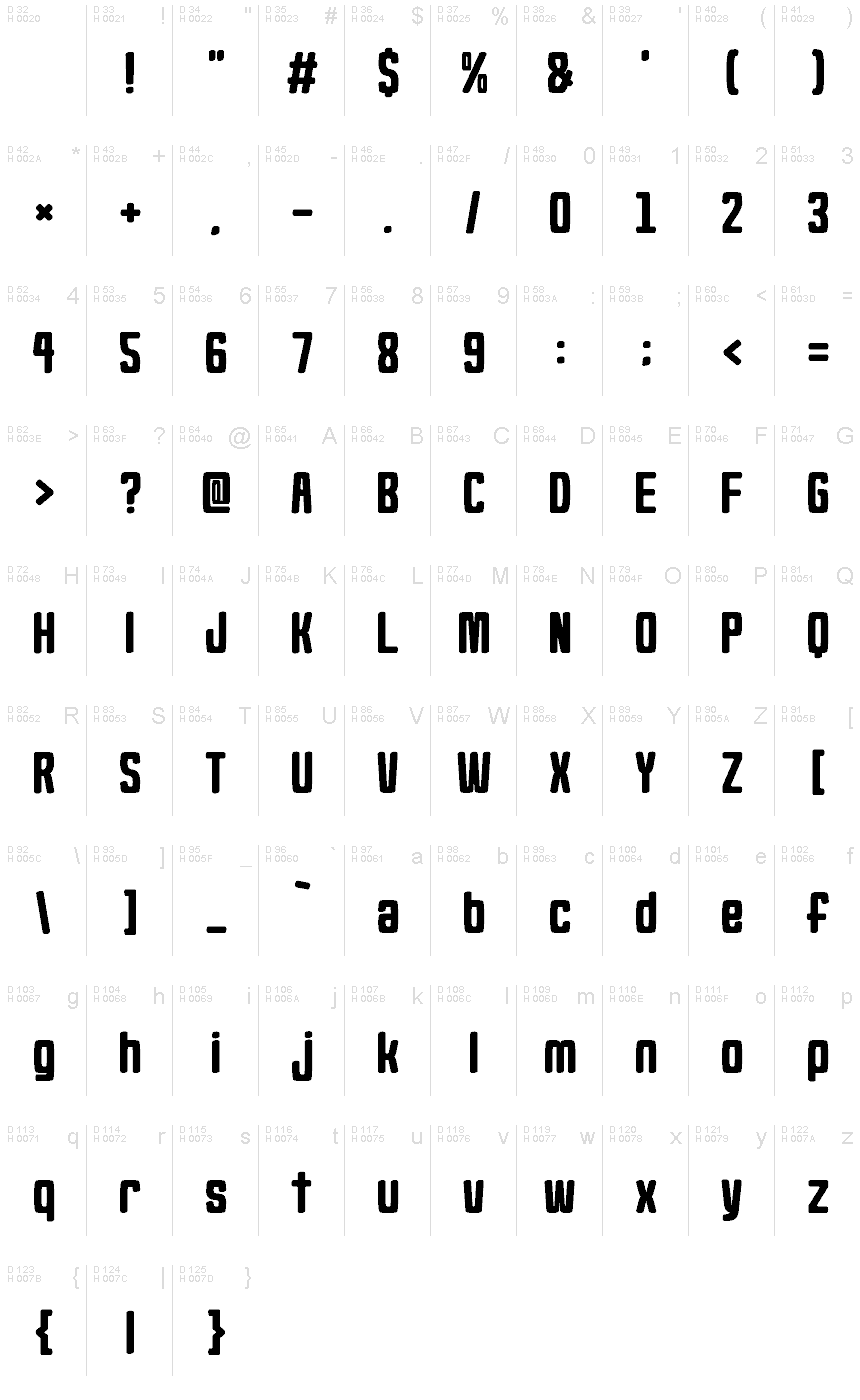
Tofo Steak
Tofo Steak font is a retro, yet modern, display typeface designed by Goma Shin. Its blocky structure, geometric influence, and casual mood combine into an approachable aesthetic suitable for relaxed and creative designs. Slim letters fall on the smaller side of things making for a compact character set of reduced width.
Free applications of Tofo Steak include social media posts, business cards, packaging designs, branding projects, invitation cards, and more. Use it additionally in journal covers, identity cards/projects or any other creative uses where its fun nonchalance would fit right in!